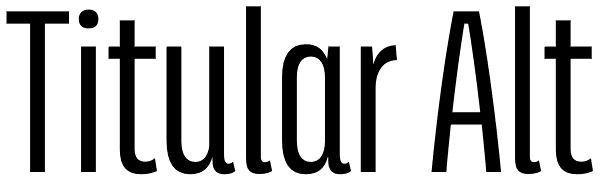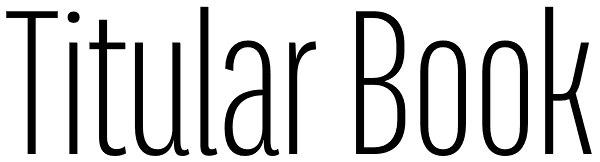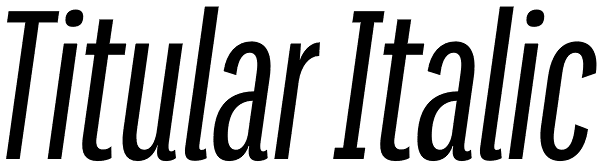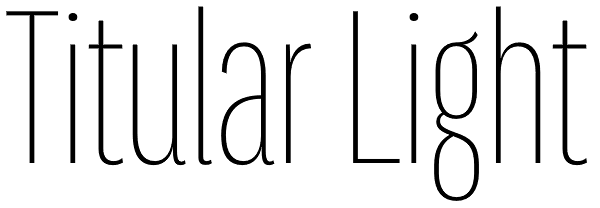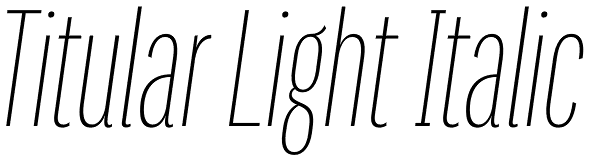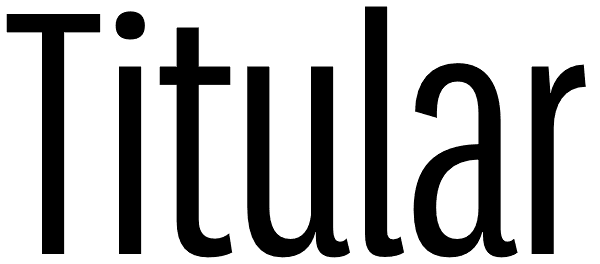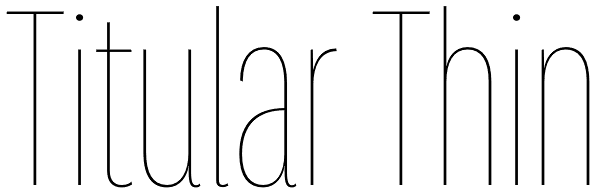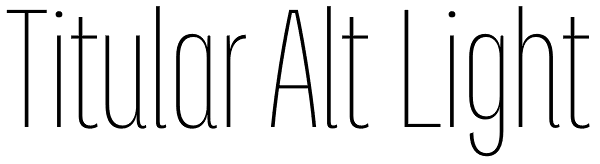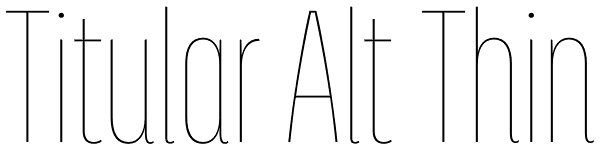
Titular
Titular is a condensed Sans Serif typeface that works well with headings, subheadings, newspapers, magazines as well as with logotypes, brands and posters. This typeface revives the spirit of old Woodtypes, but adding a contemporary flavour and...